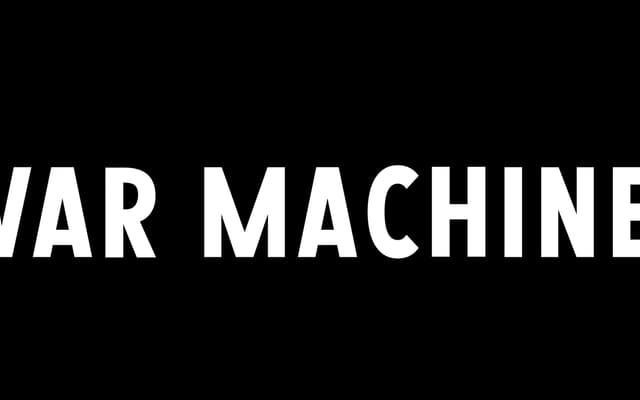
War Machine
An all-caps display grotesque in four weights, drawn from the vernacular lettering of turn-of-the-century signage.
Inspired by hand-painted and printed signage from around 1900, War Machine offers four weights from Light to Bold in an all-caps grotesque format. The historical reference gives it a period warmth that sets it apart from clean, constructed grotesques. Suited to editorial headlines, branding and poster work where a vernacular edge is wanted.
An all-caps grotesque inspired by turn-of-the-century signage lettering, placing it squarely in the display grotesque tradition with vernacular roots.